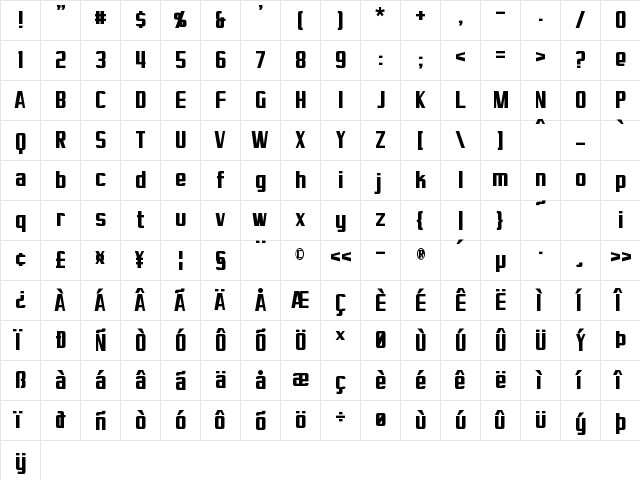
Virtucorp Regular
| Foundry | Neale Davidson |
| Designer | Neale Davidson |
Design Context for Virtucorp Typeface
Virtucorp offers clean, dependable letterforms without strong stylistic allegiance, making it a practical choice for designers who need flexibility.